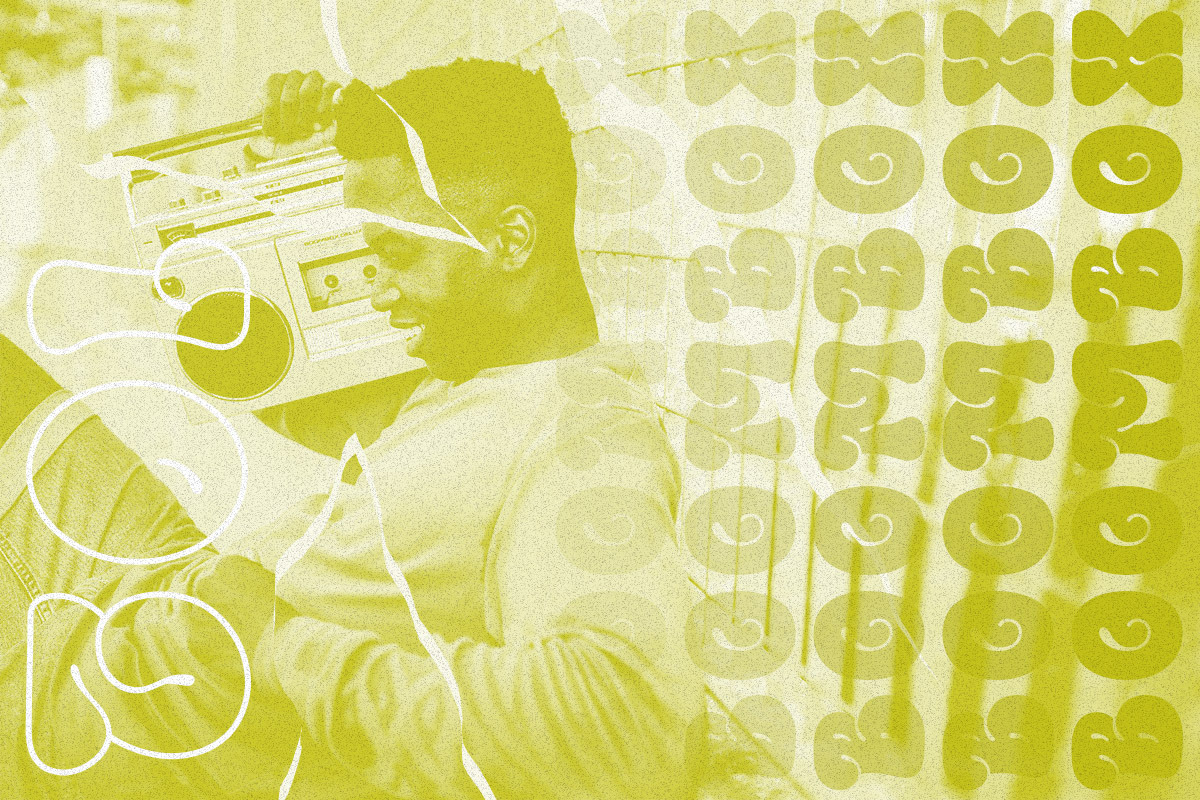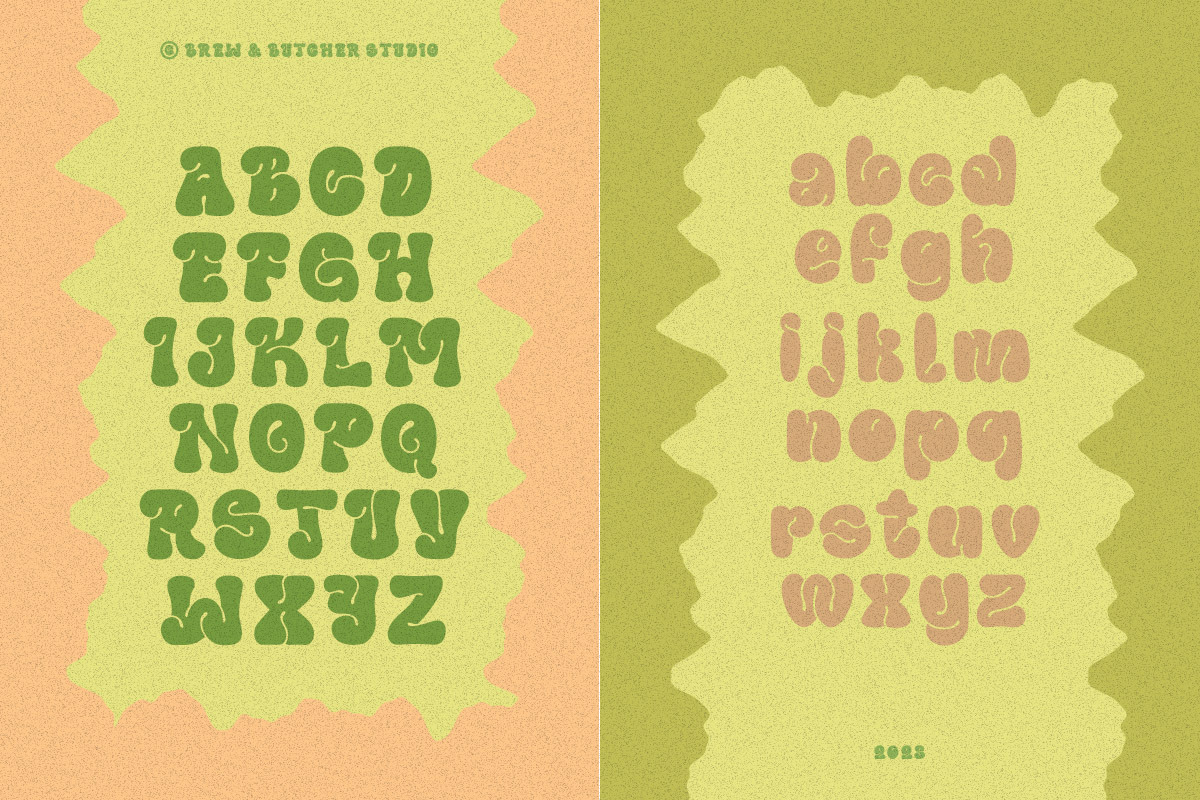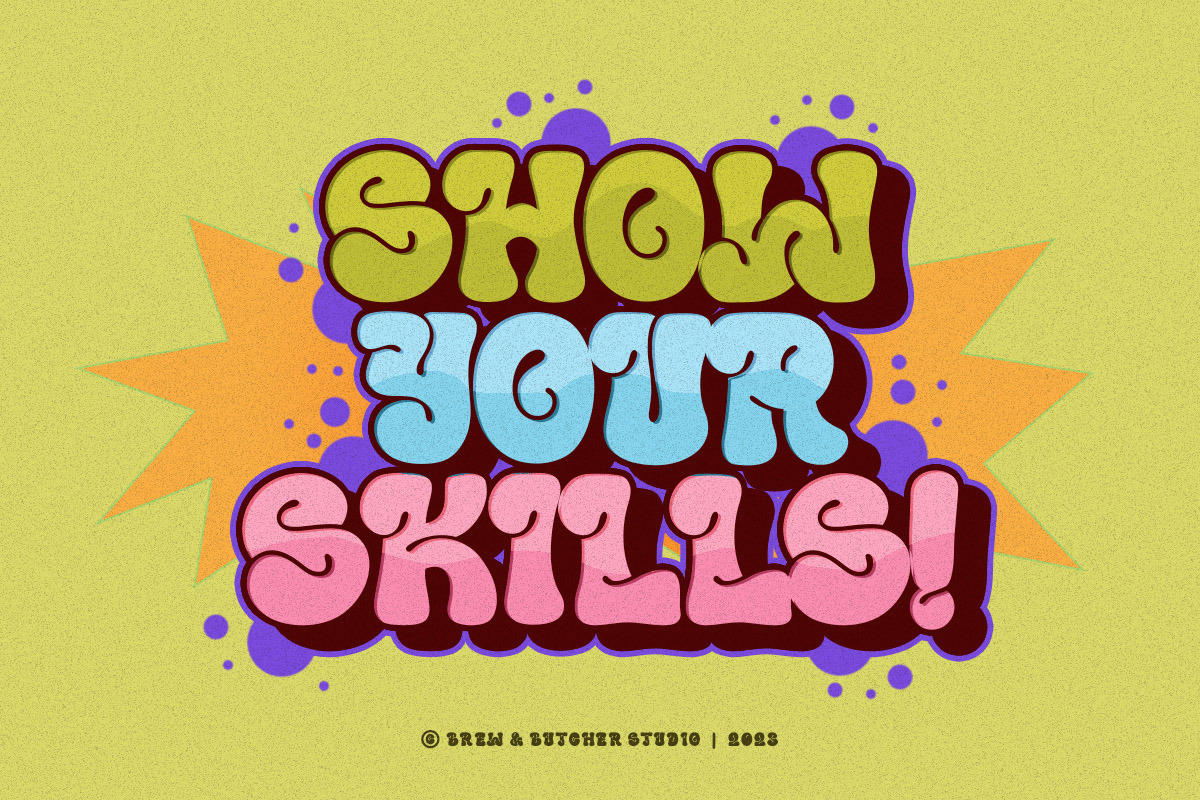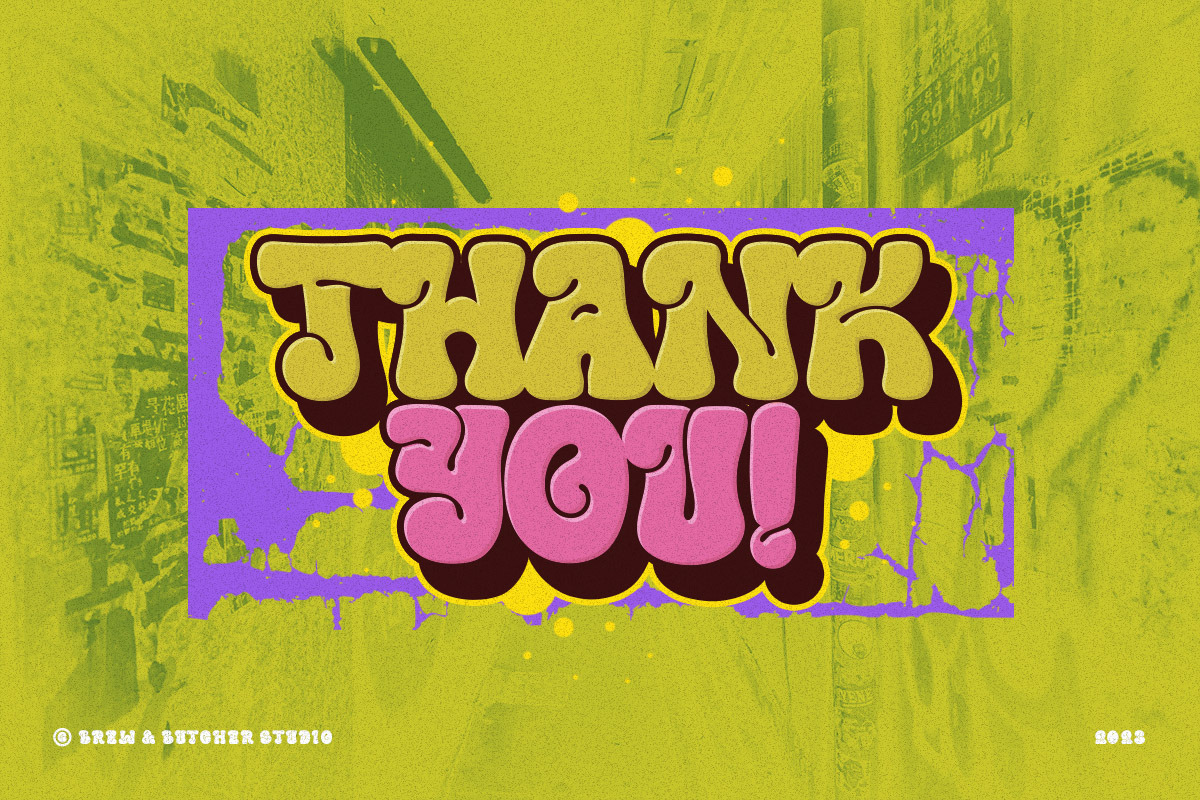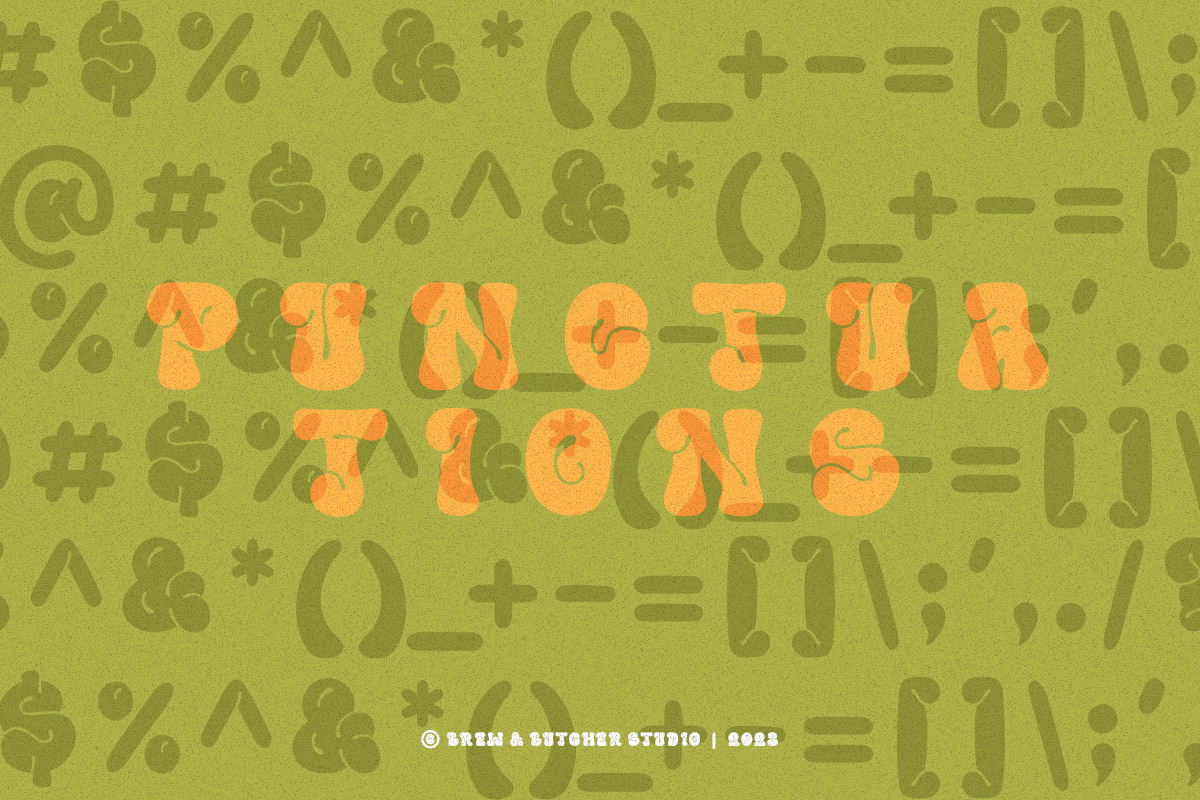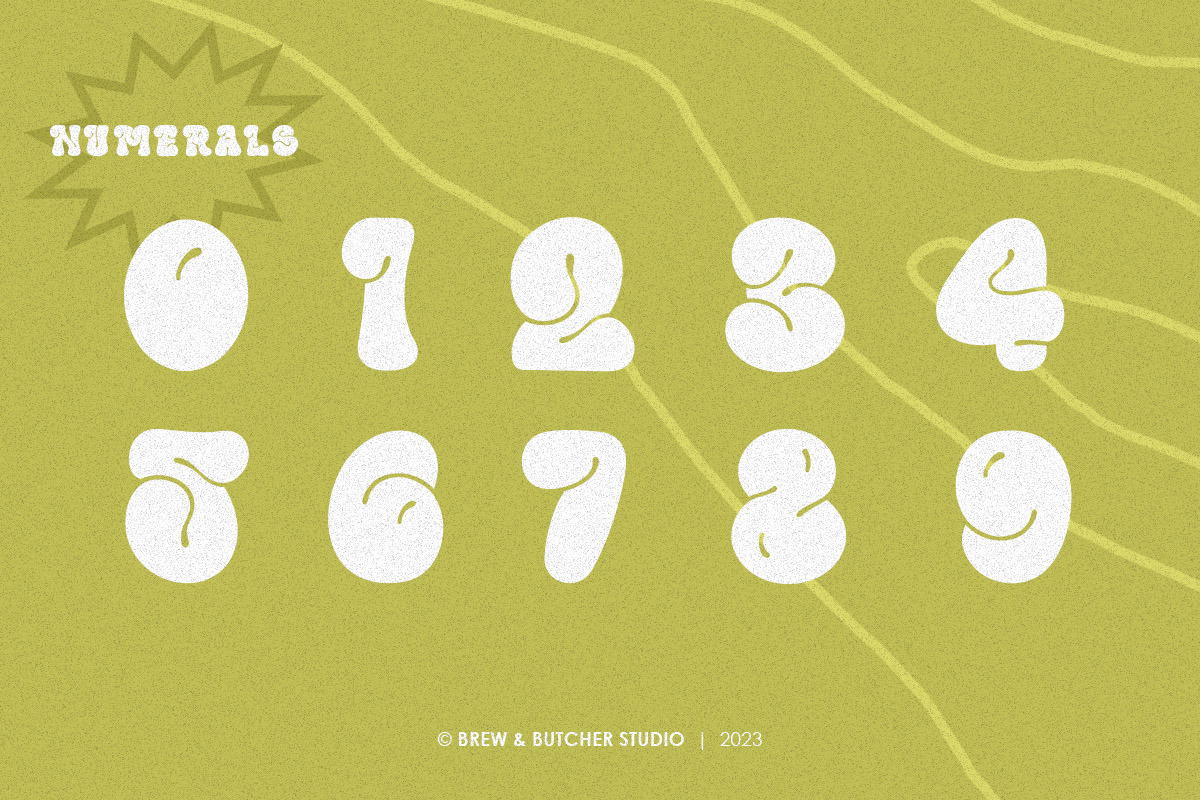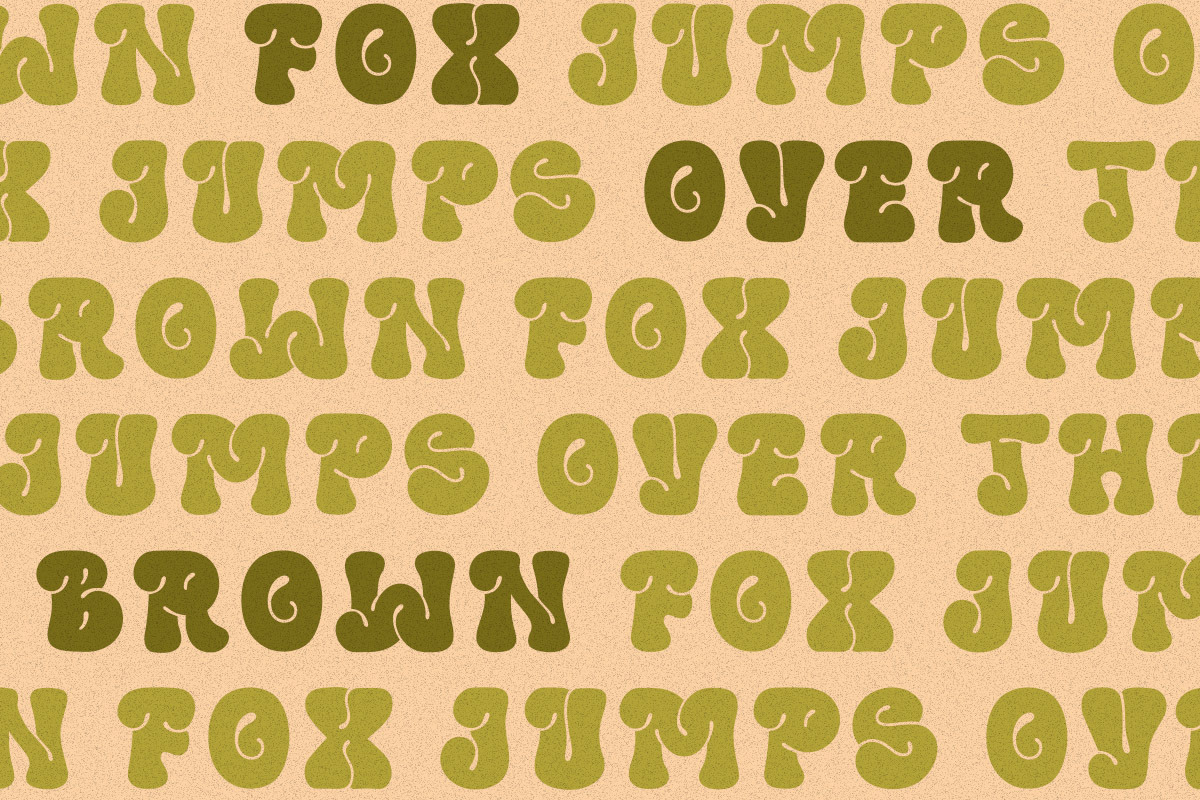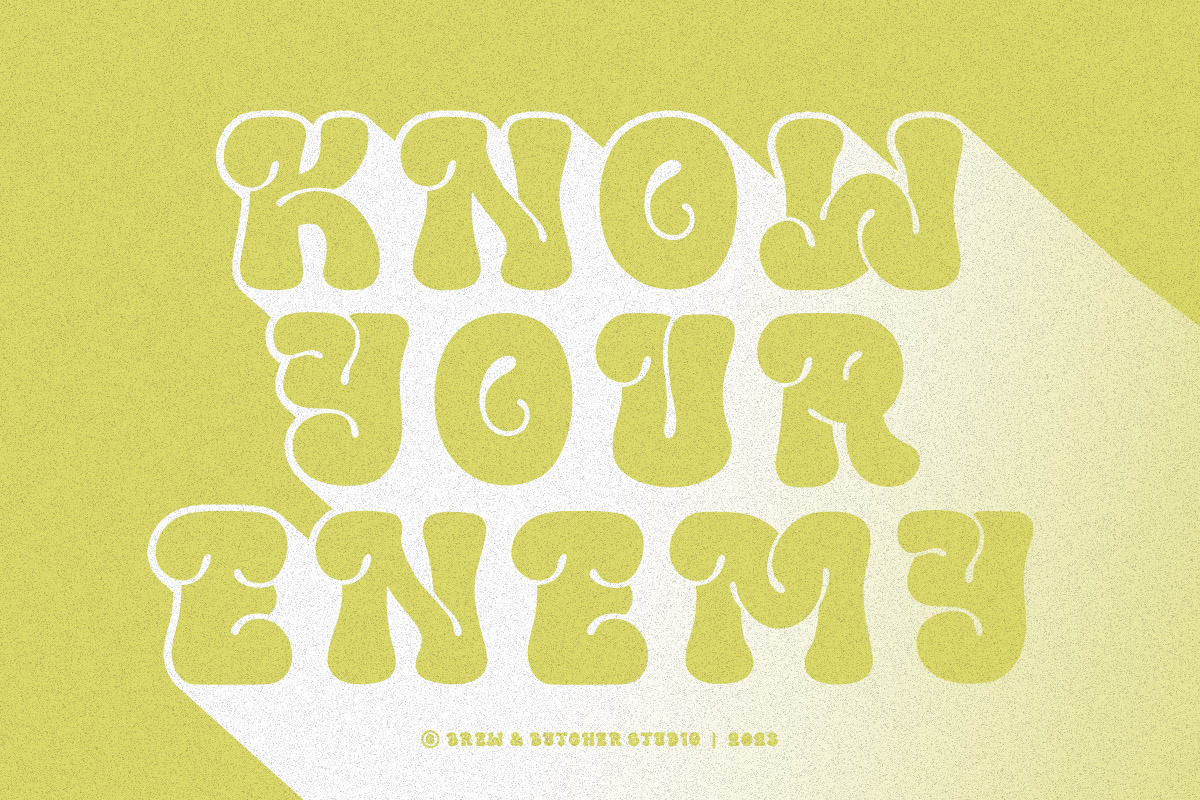
BloomBops | Psychedelic Typeface
BloomBops is a font that has a unique character, and a puffy shape. The concept and idea of this font is a depiction of a psychedelic and bubble style. It has smooth curves and a very attractive firmness of shape. This font is best to use for header or headline, poster, flyer, banner, landingpage, portfolio, name write, album covers, and etc.